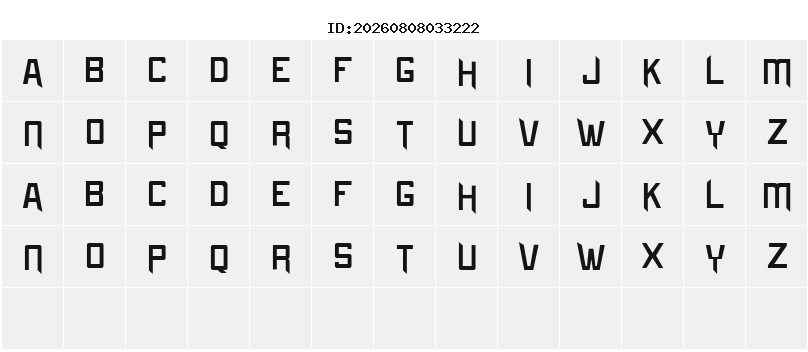
• Font Name: Production
• Designer: Jadugar
• Manufacturer: Jadugar Design
Production.ttf is a modern, elegant sans-serif font designed for ultimate readability and visual harmony. Perfect for branding, headlines, web design, and print materials.